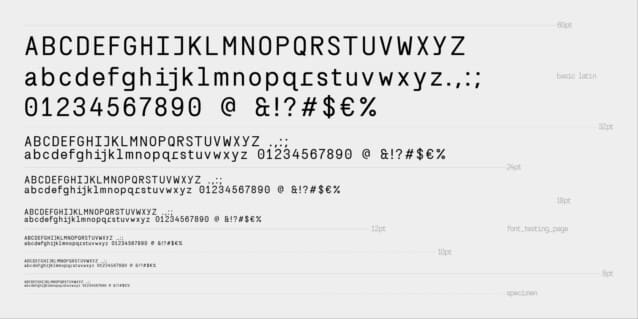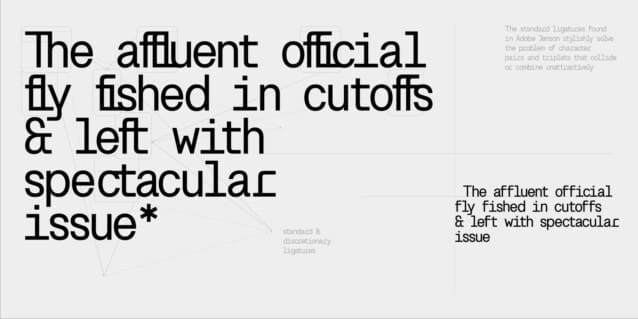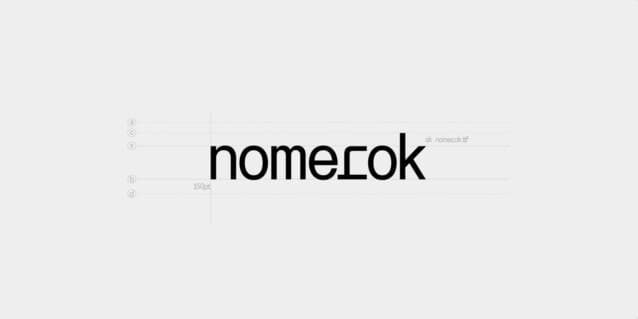
SK Nomerok Font
SK Nomerok Font is an elegant geometric font with a minimalistic design. A unique pattern of symbols in a compartment with a strict classical design creates a strong and reliable structure, ideal for modern design. The sharp and angular letters of SK Nomerok are easy to read both on the screen and when printing. The geometric elements of the font are complemented with unique details, which adds to its originality and attractiveness. This font is perfect for branding, headlines and decorative text, adding modernity to any project. The font is multilingual and supports both extended Latin and Cyrillic character set.